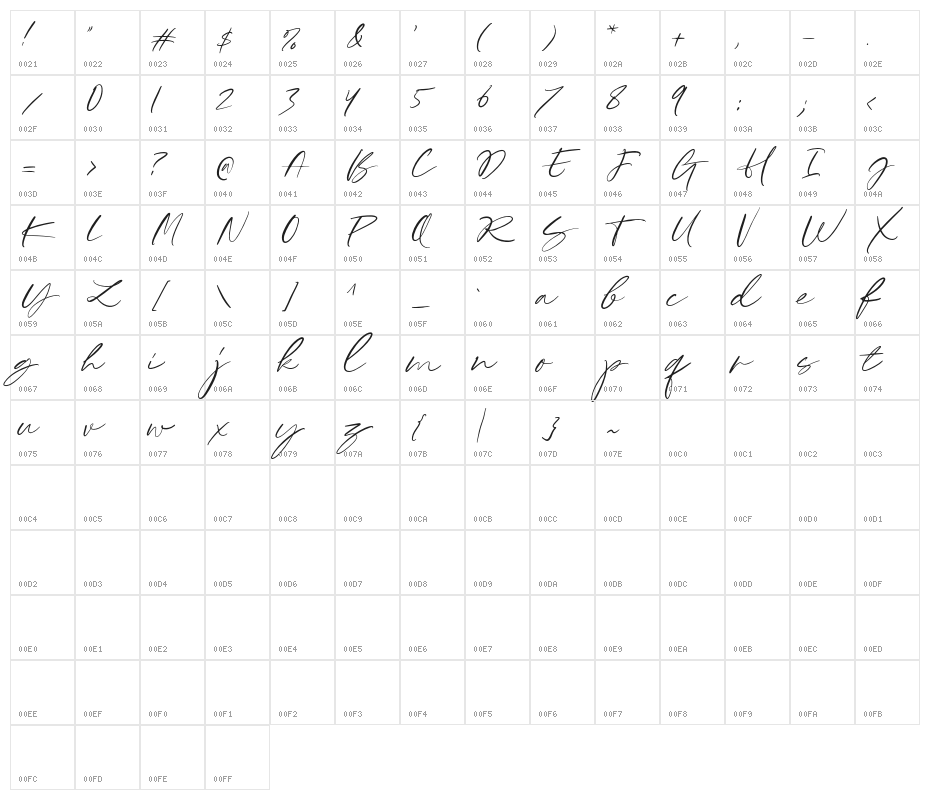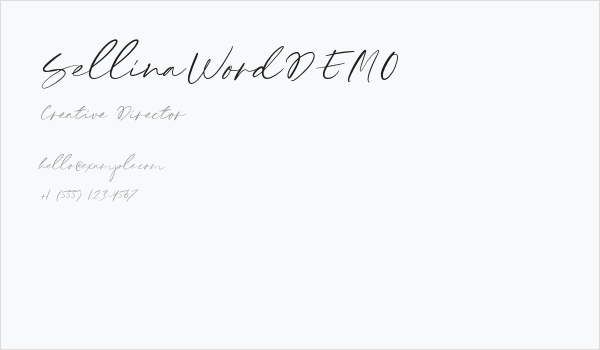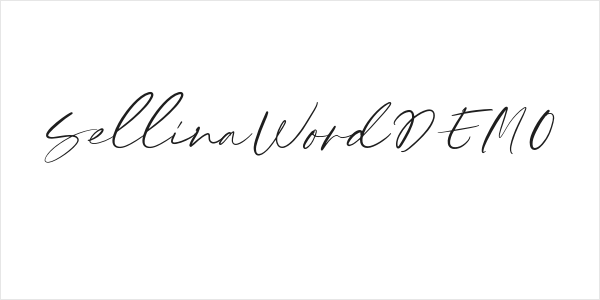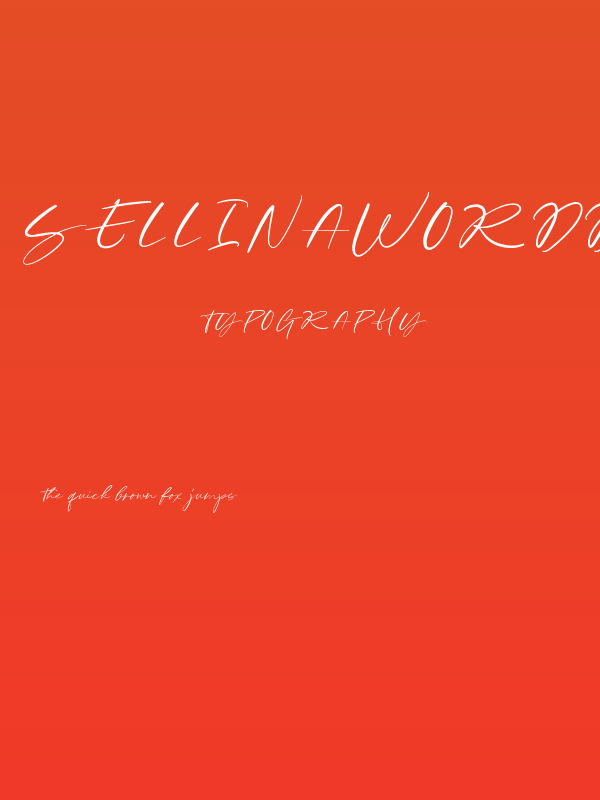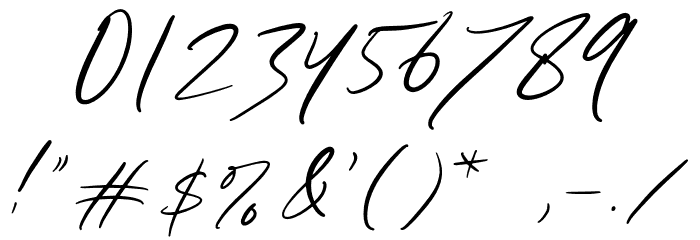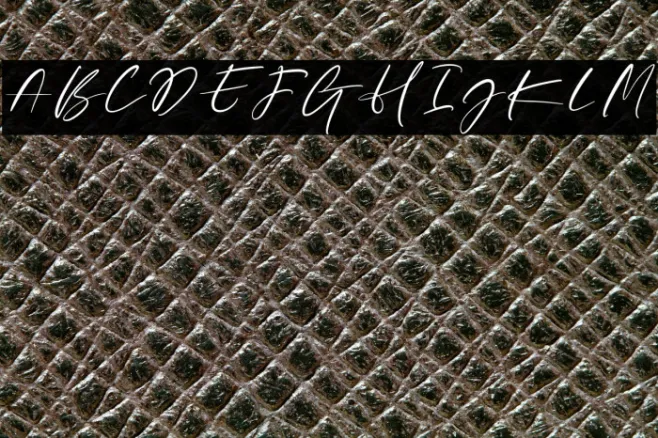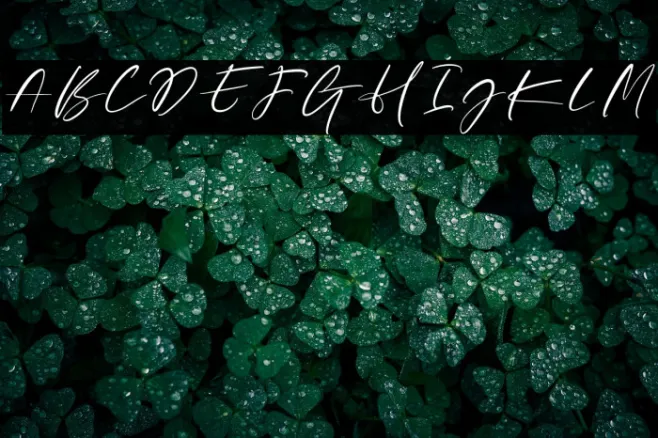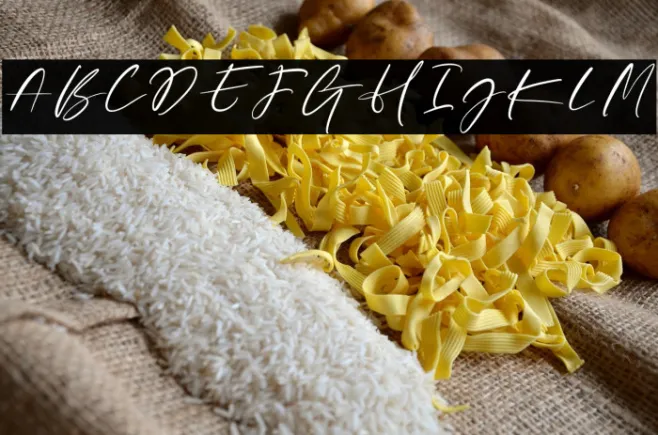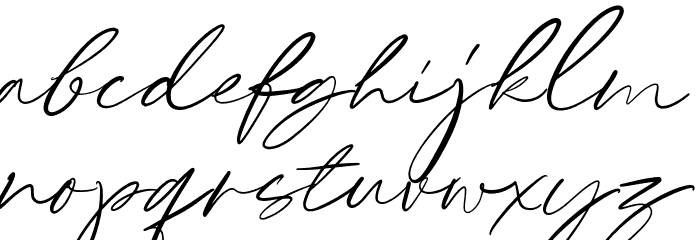
SellinaWordDEMO Font
SellinaWordDEMO Description
This font exudes a dynamic and fluid handwritten style, characterized by its elegant and flowing script. The uppercase letters are slightly more structured, while the lowercase letters exhibit a more casual and freeform appearance. The strokes vary in thickness, adding a sense of movement and grace. The numerals and special characters maintain the same fluidity, ensuring consistency across all characters. This font is perfect for projects that require a personal touch, such as invitations, greeting cards, and branding materials.
| Proposed Projects | Ideal for wedding invitations, personal branding, greeting cards, and artistic projects. |